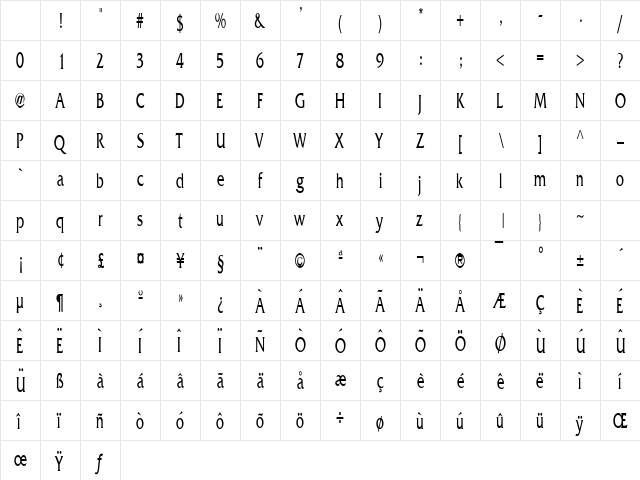
Franco Thin is a composed and adaptable typeface that performs quietly and consistently across a wide range of design contexts. Its slender proportions lend an understated elegance to any composition.